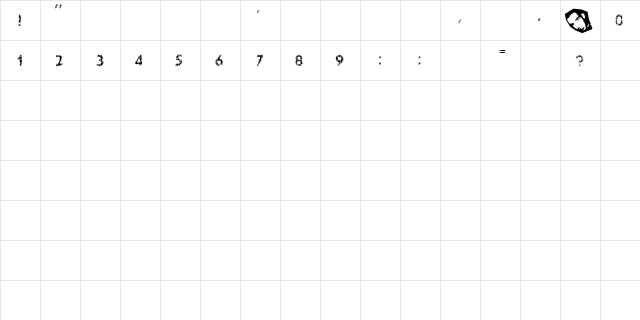
ANS afterfire Regular
Design Context for ANS afterfire Typeface
ANS afterfire is a composed and adaptable typeface that performs quietly and consistently across a wide range of design contexts.
Pro Tip: Use ANS afterfire in both headline and body roles to test its range before committing to a single application.